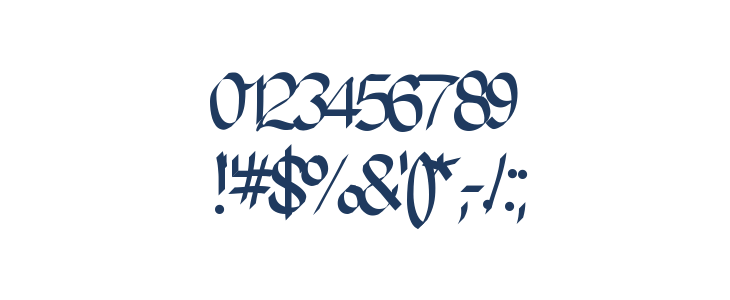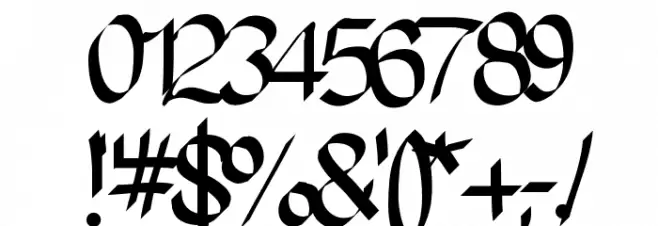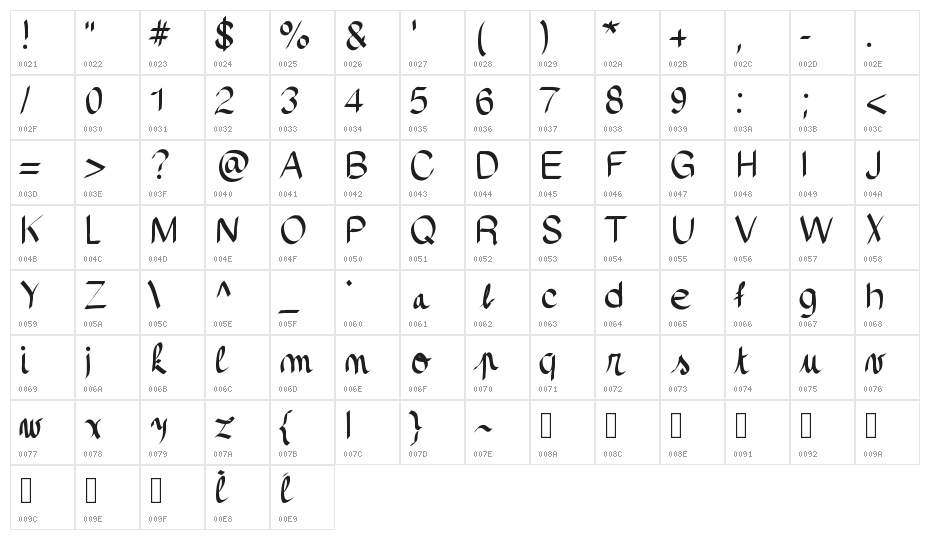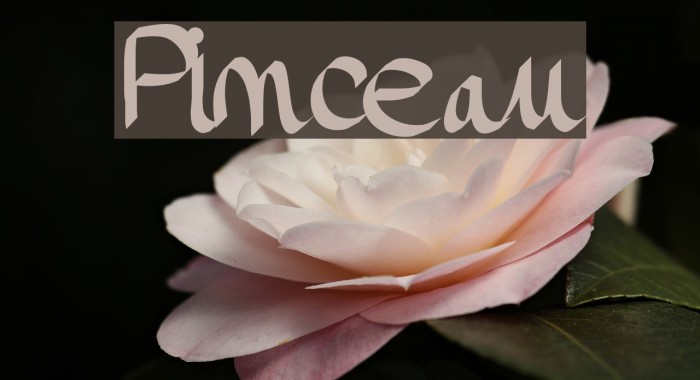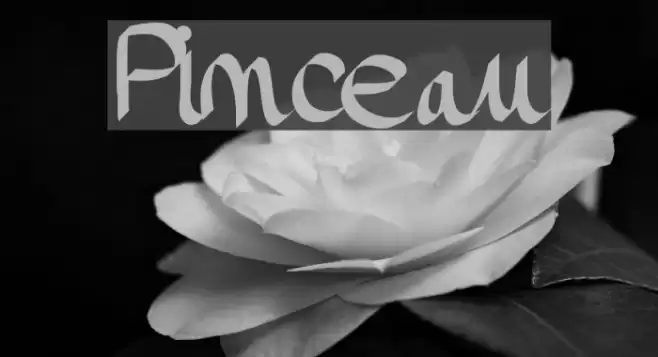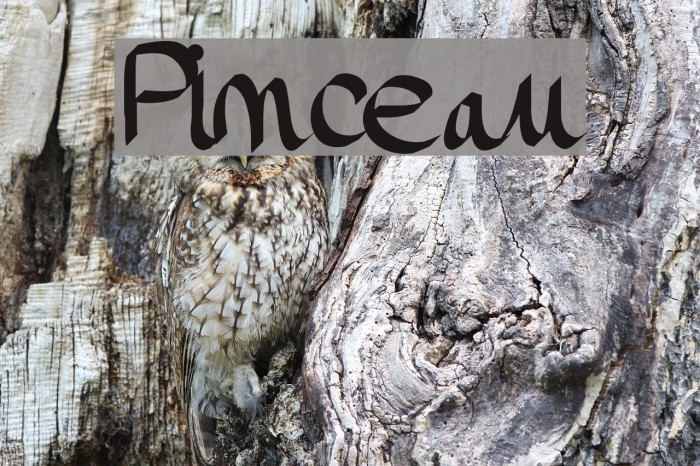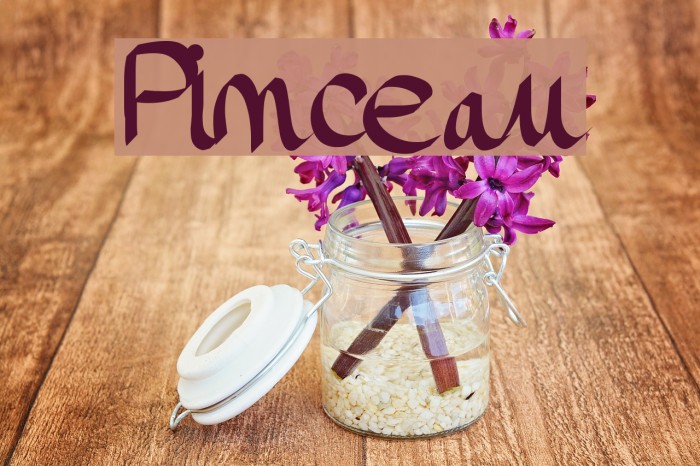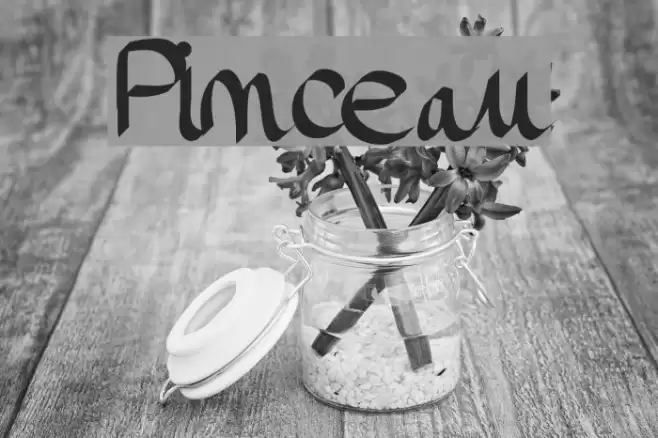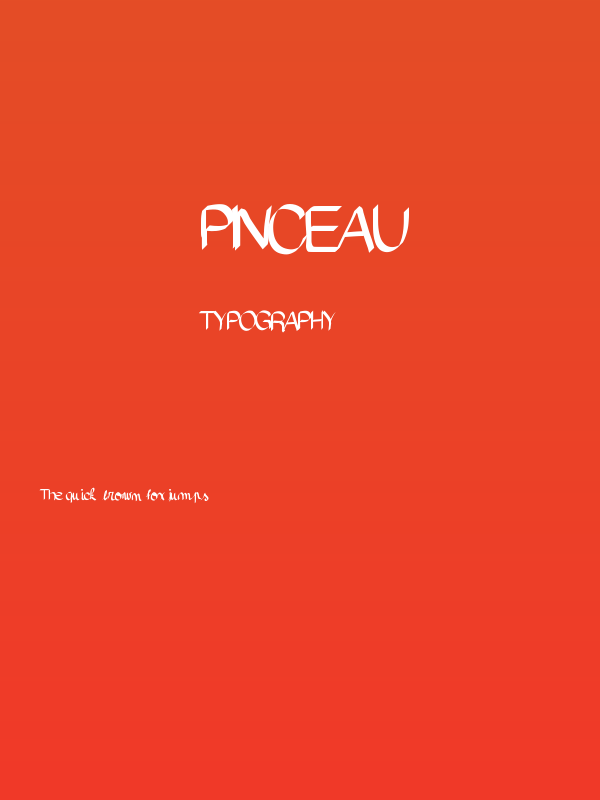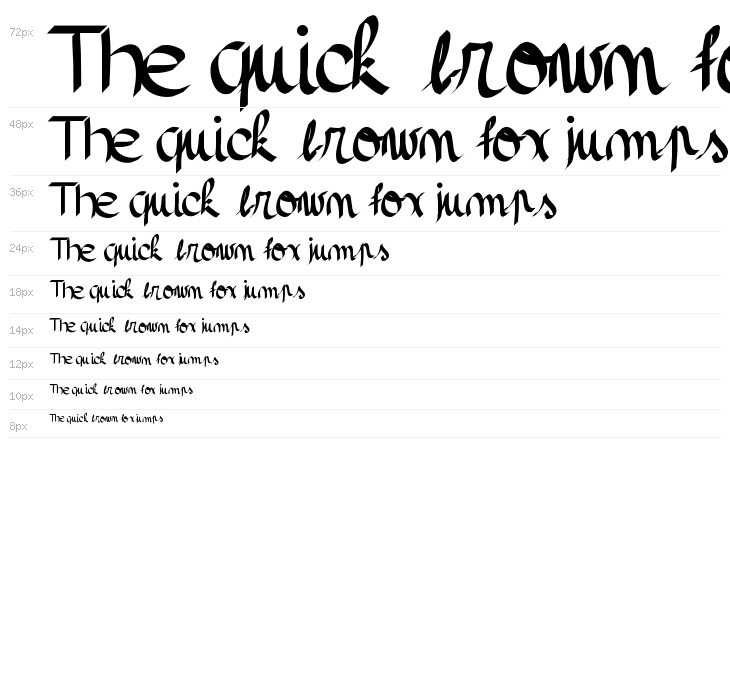
Pinceau Font
Pinceau Description
This font exhibits a dynamic and expressive style, characterized by its brush-like strokes and fluid motion. The uppercase letters are bold and angular, creating a sense of energy and movement. The lowercase letters maintain a consistent flow, with varying stroke widths that add to the font's artistic flair. The numerals and special characters follow the same expressive design, making them stand out with their unique shapes. Overall, the font conveys a sense of creativity and spontaneity, reminiscent of hand-painted lettering.
Overall StyleArtistic, Expressive
Use CaseLogos, Posters, Creative Branding
Proposed ProjectsIdeal for creative projects such as art posters, branding for artistic ventures, or any design needing a bold, expressive touch.